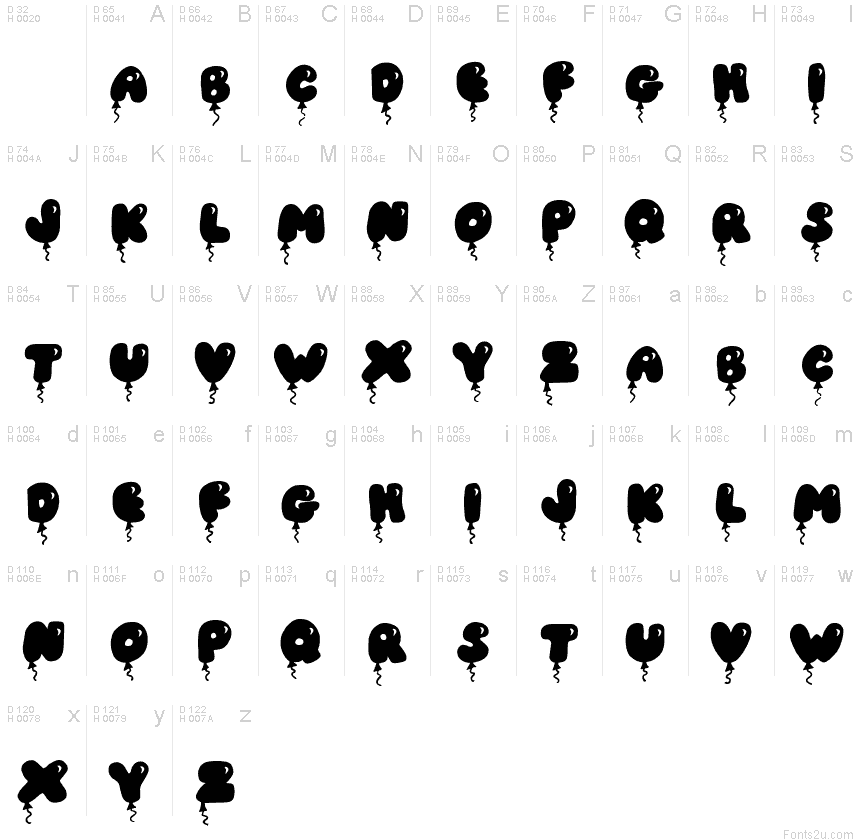
JI Solid Balloon Caps
JI Solid Balloon Caps font by Jeri Ingalls is a free cartoon display typeface that feels like a handful of ink-black party balloons floating across the page. Each letter swells with rounded, squishy curves and tiny glossy highlights, with curly strings dangling below, so the whole word reads like a line of helium balloons just released from a birthday table. The forms are bold and tightly packed, which keeps even busy headlines easy to read while still feeling lighthearted and bouncy.
Using JI Solid Balloon Caps, you can instantly turn headers for kids’ birthday invitations, party posters, school event flyers, carnival signage, sticker packs, and playful social graphics into a celebration. This free font shines when set large and given plenty of breathing room; pair it with a simple sans serif for body text so the bubbly letters stay the main attraction.